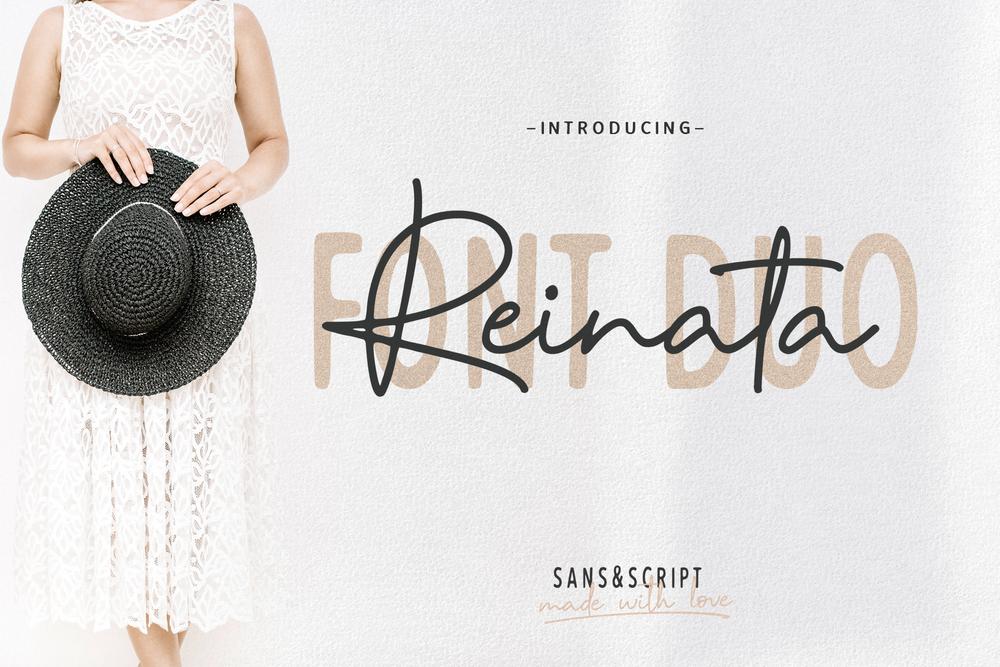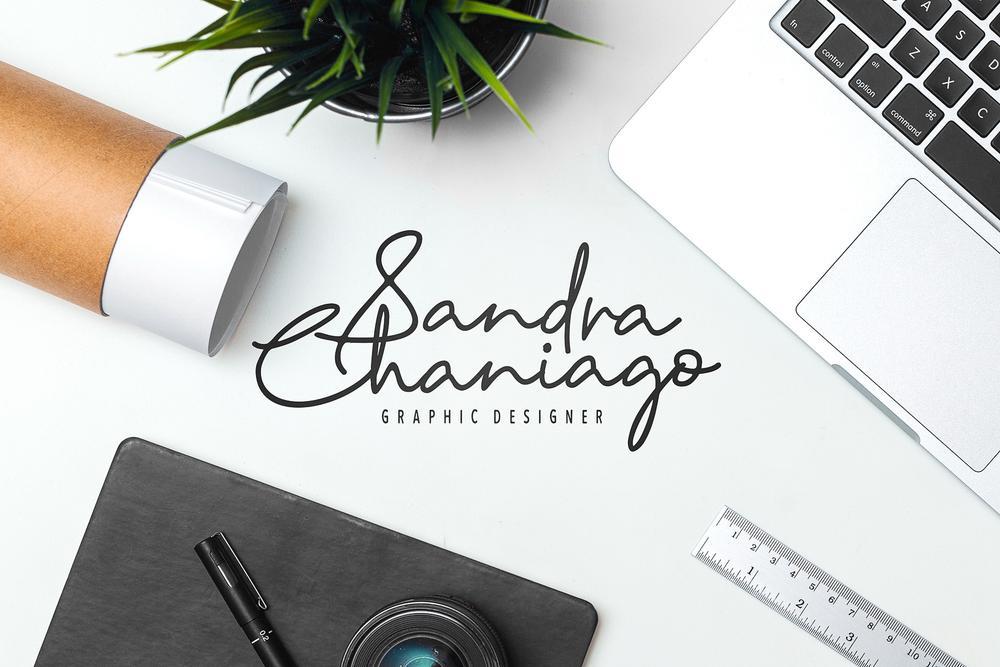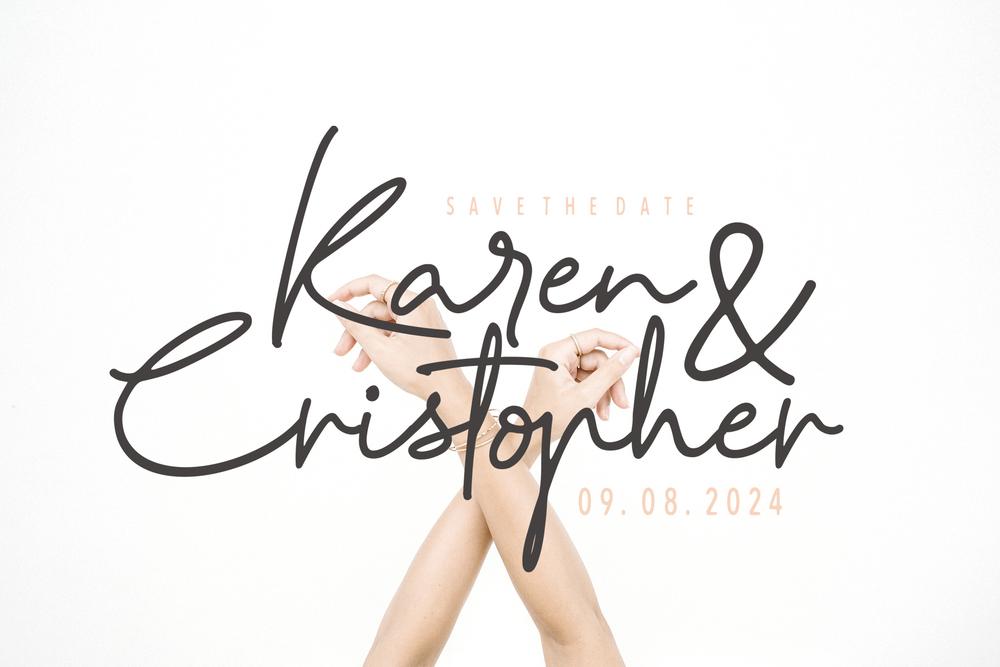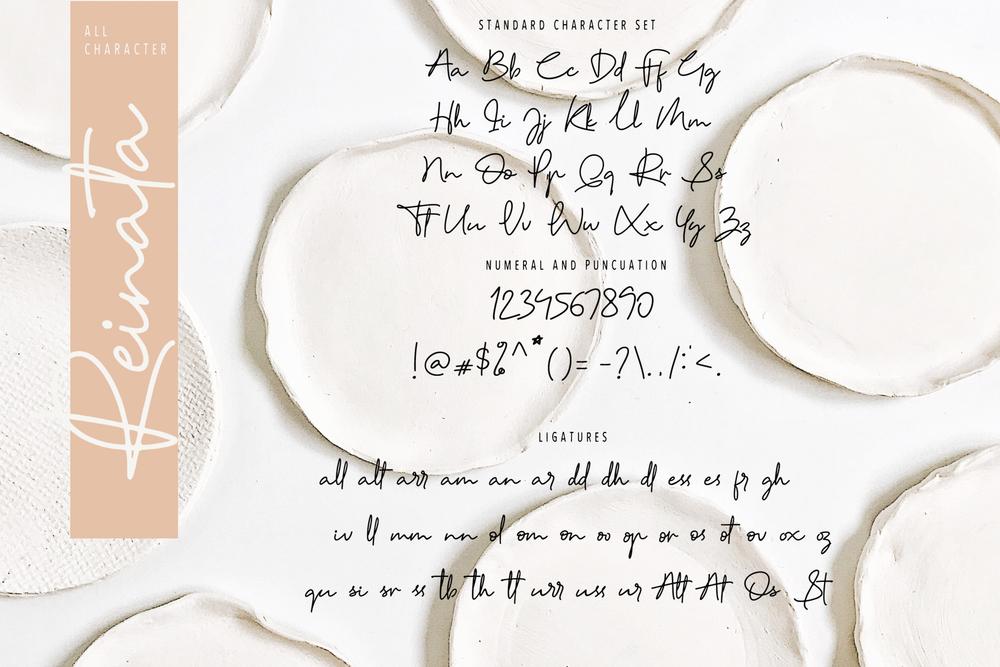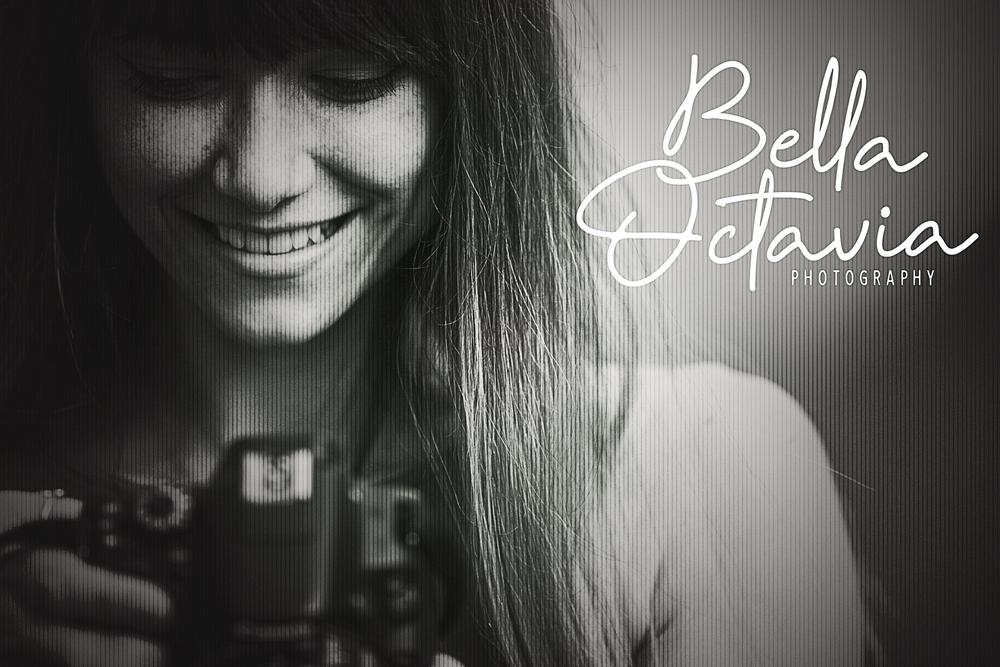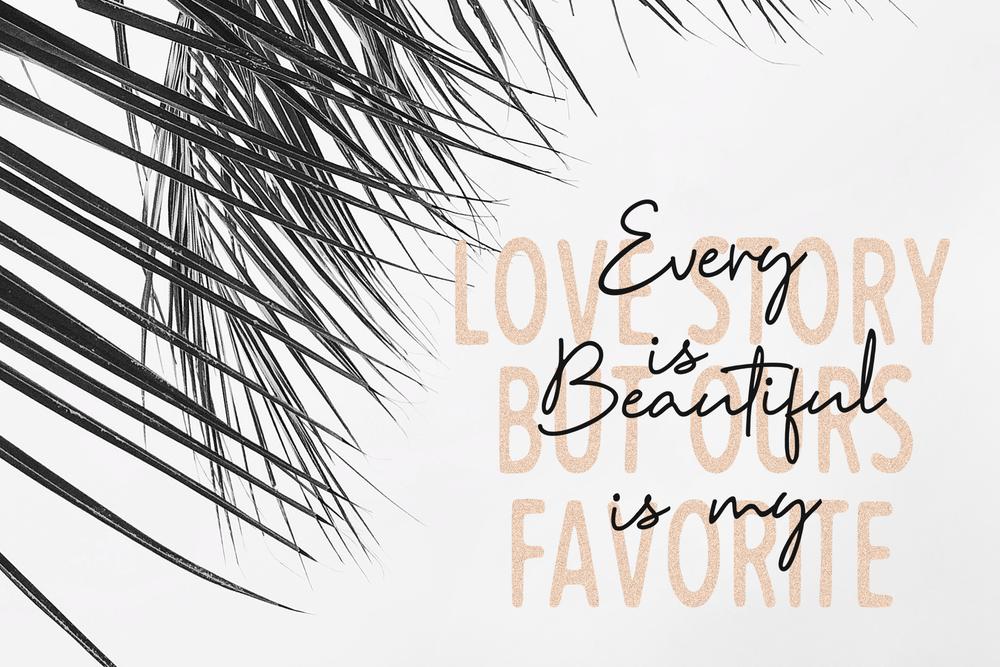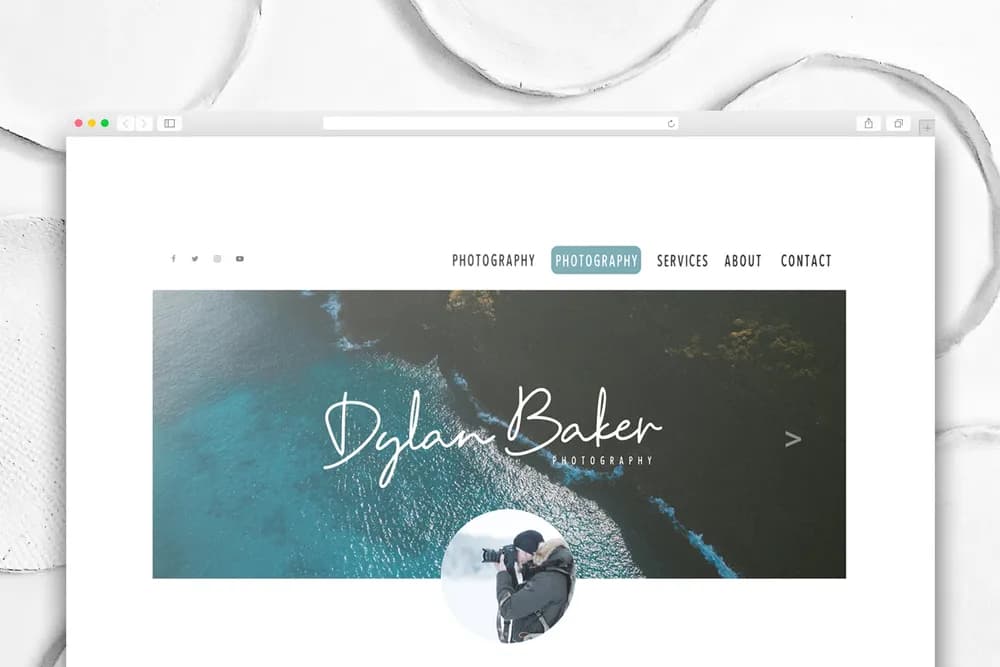
The Reinata is a beautiful handwritten typeface which will give your design a handmade feeling. It comes in a script and sans version which can be combined to create an unique design in an instant. It’s perfect for headings, logos, invitations, t-shirt designs, greeting cards, posters, labels, book covers, brochures and much more! This font available: Reinata Script (OTF) Reinata Script (TTF) Reinata Script (WOFF) Reinata Sans (TTF)